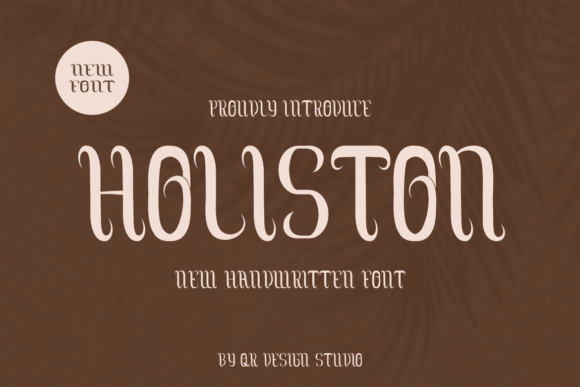
Introducing Holiston Font, crafted with the utmost care and precision to embody the essence of grace and elegance. This exquisite font, belonging to the esteemed script family, has been meticulously designed by the renowned qrdesignstd, a name synonymous with artistic excellence.
Holiston is not just a font; it's an artistic masterpiece that brings life to your creative visions. Its beautiful and harmoniously balanced characters dance across the page, forming words that whisper elegance and sophistication. With Holiston, your designs will transcend the ordinary, captivating hearts and minds with their ethereal beauty.
This remarkable font possesses an innate ability to adapt to a diverse range of projects. Whether you're crafting captivating logos, designing breathtaking invitations, or creating mesmerizing social media posts, Holiston seamlessly blends in, elevating your creations to new heights of visual appeal. Its versatility is truly astounding, allowing you to effortlessly bring your unique style to any project, regardless of its nature.
Experience the transformative power of Holiston as it breathes life into your most ambitious creative endeavors. Let its flowing strokes and delicate curves ignite your imagination, propelling your designs to the forefront of visual excellence. Discover the endless possibilities that await you with Holiston, the ultimate font for those who seek distinction and artistic brilliance.
Step into a world of enchantment, where typography takes on a life of its own with Holiston Font. Allow its captivating charm to cast a spell on your audience, drawing them into a world of beauty and inspiration. Embrace the allure of Holiston and witness the transformation of your designs into captivating works of art that leave an indelible mark on the hearts and minds of your audience.